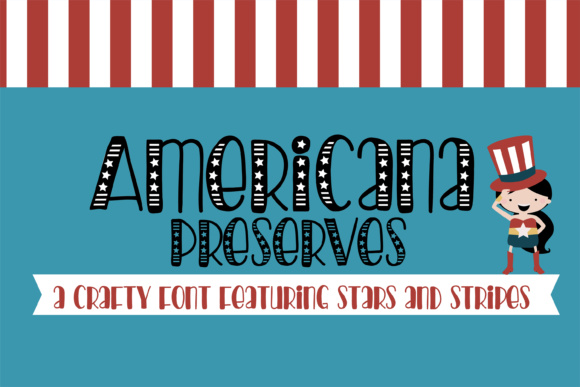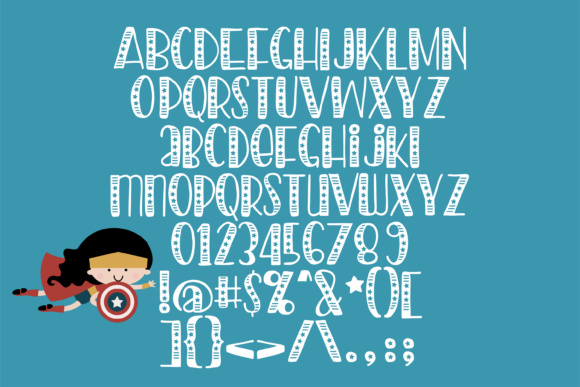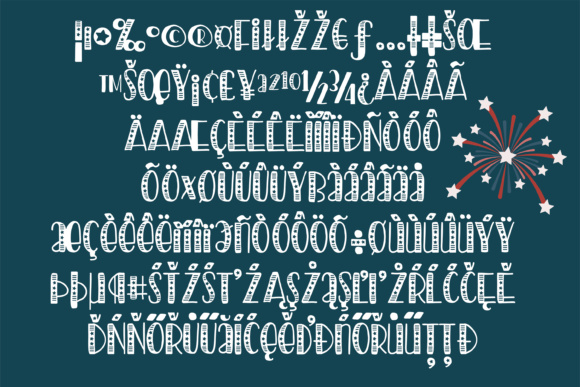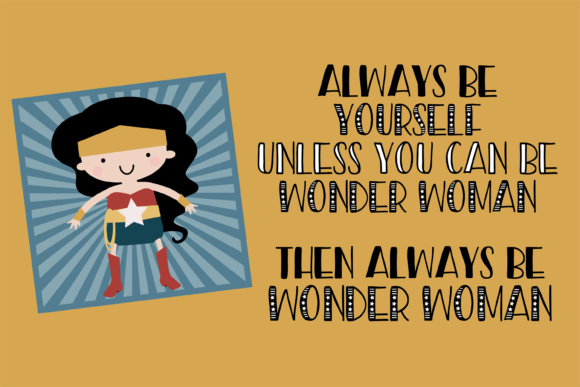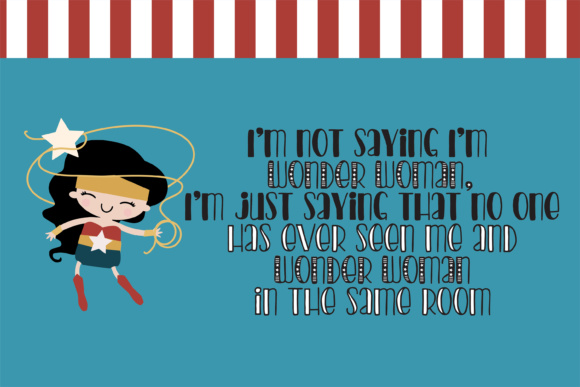
Americana Preserves Font
Americana Preserves is a gorgeous, handwritten font that will elevate all your designs! This font is gorgeous and features stars and stripes, making it perfect for the 4th of July and any patriotic holiday or occasion.